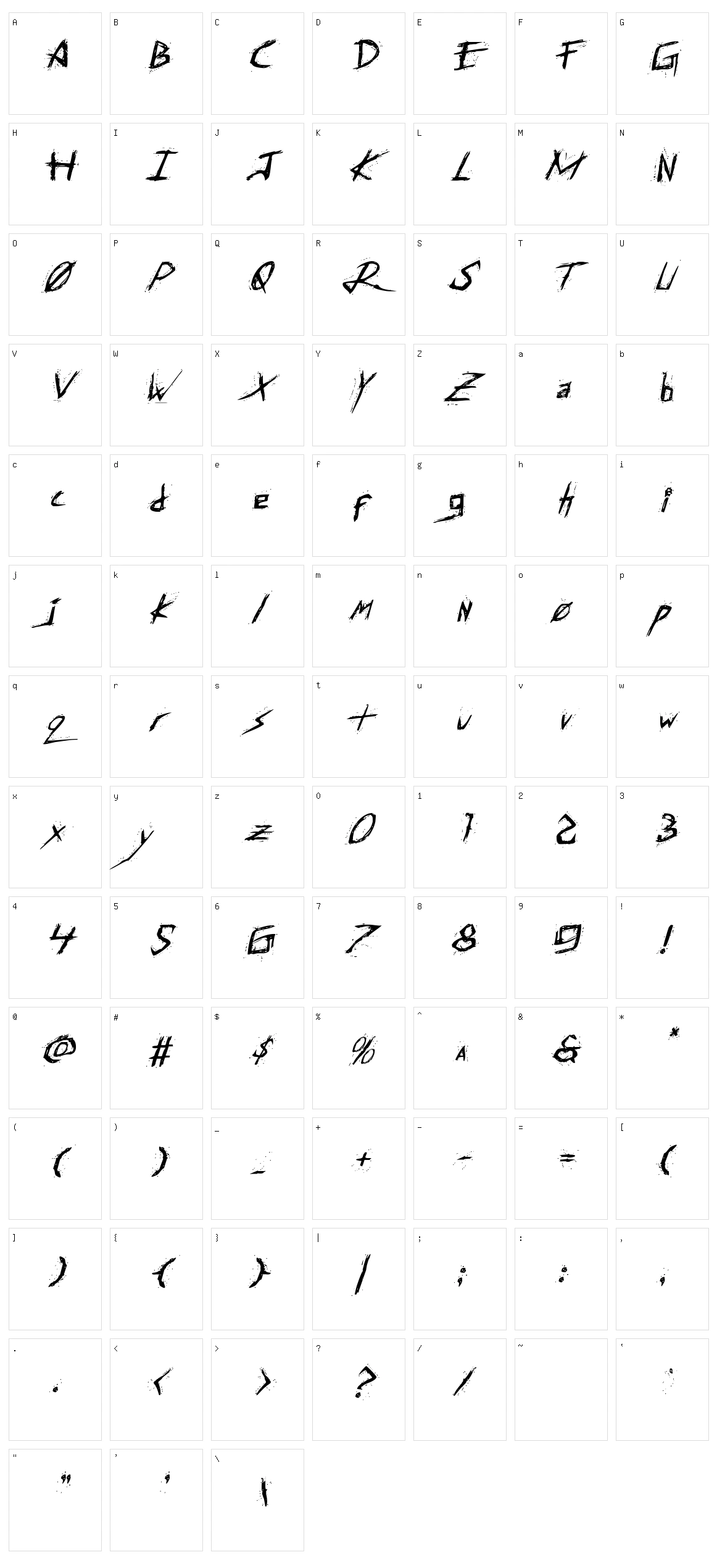
The free font Assassin Nation is carefully designed by Iconian Fonts, showcasing a thoughtful balance of creativity and usability and falls under the Horror font style. When you download the ZIP file, it contains only 731.67 KB of font files, making it lightweight and quick to download. Please review the license details below to understand permitted usage and distribution rights. If license information is not available, we recommend using this font for personal projects only or contacting the author directly for commercial usage permissions.
This font comes with the following 6 versions: Regular, Italic, Bold, Extra-Bold Expanded, Outline and 3D.